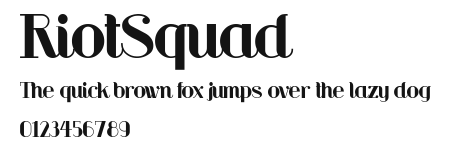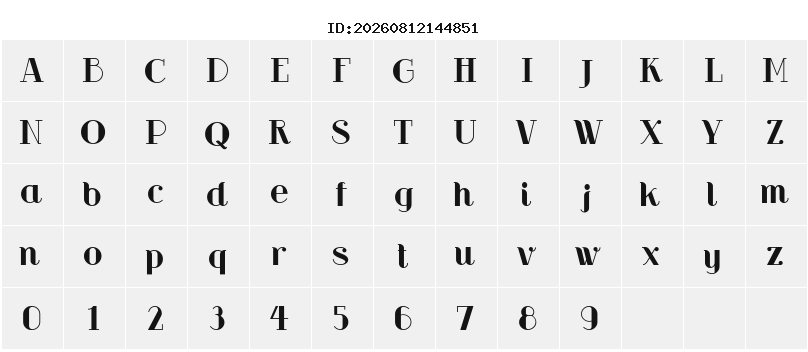
RiotSquad Preview
• Font Name: RiotSquad
• Full Font Name: RiotSquad
• PostScript Name: RiotSquad
About RiotSquad.ttf
RiotSquad.ttf is a modern, elegant sans-serif font designed for ultimate readability and visual harmony. Perfect for branding, headlines, web design, and print materials.